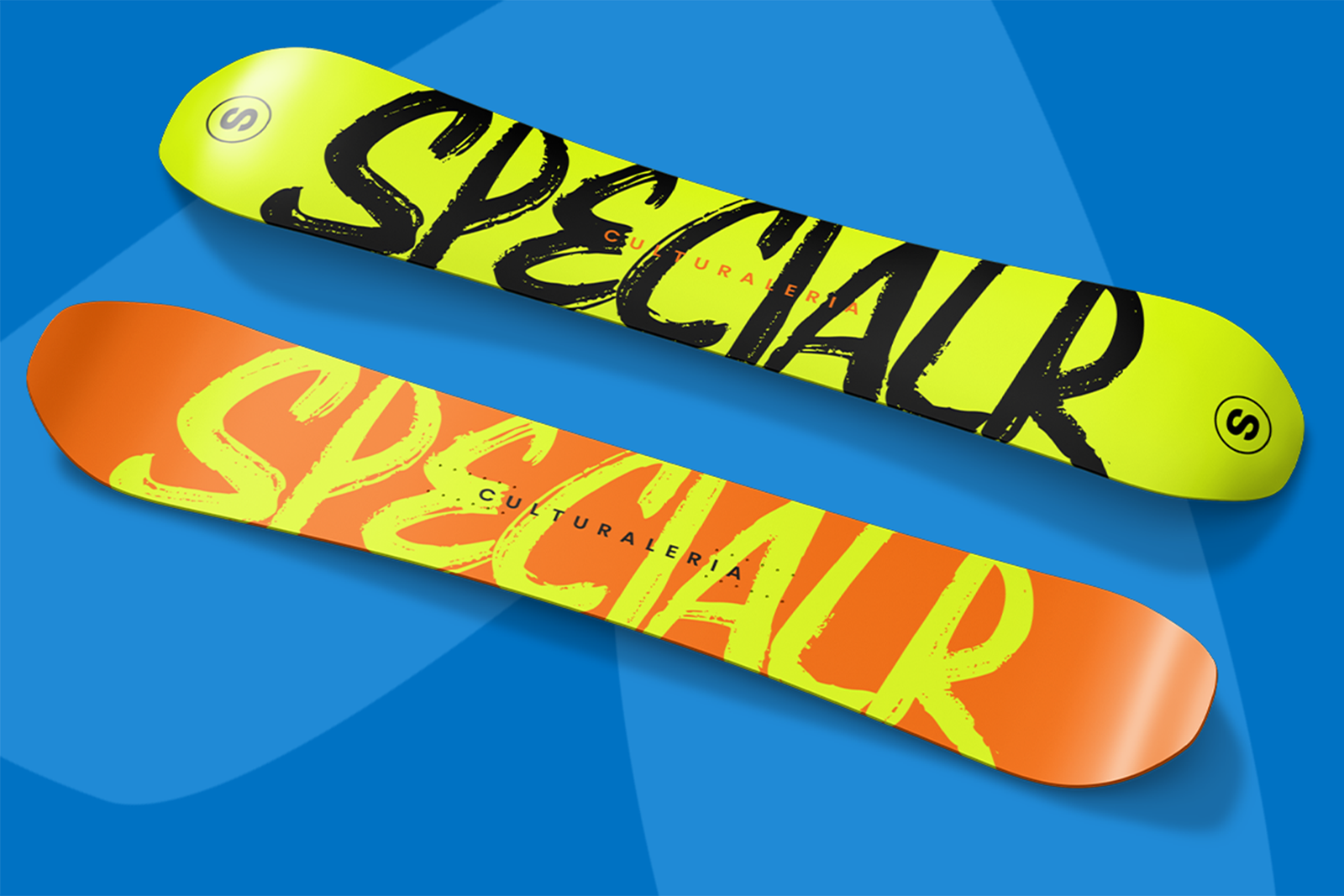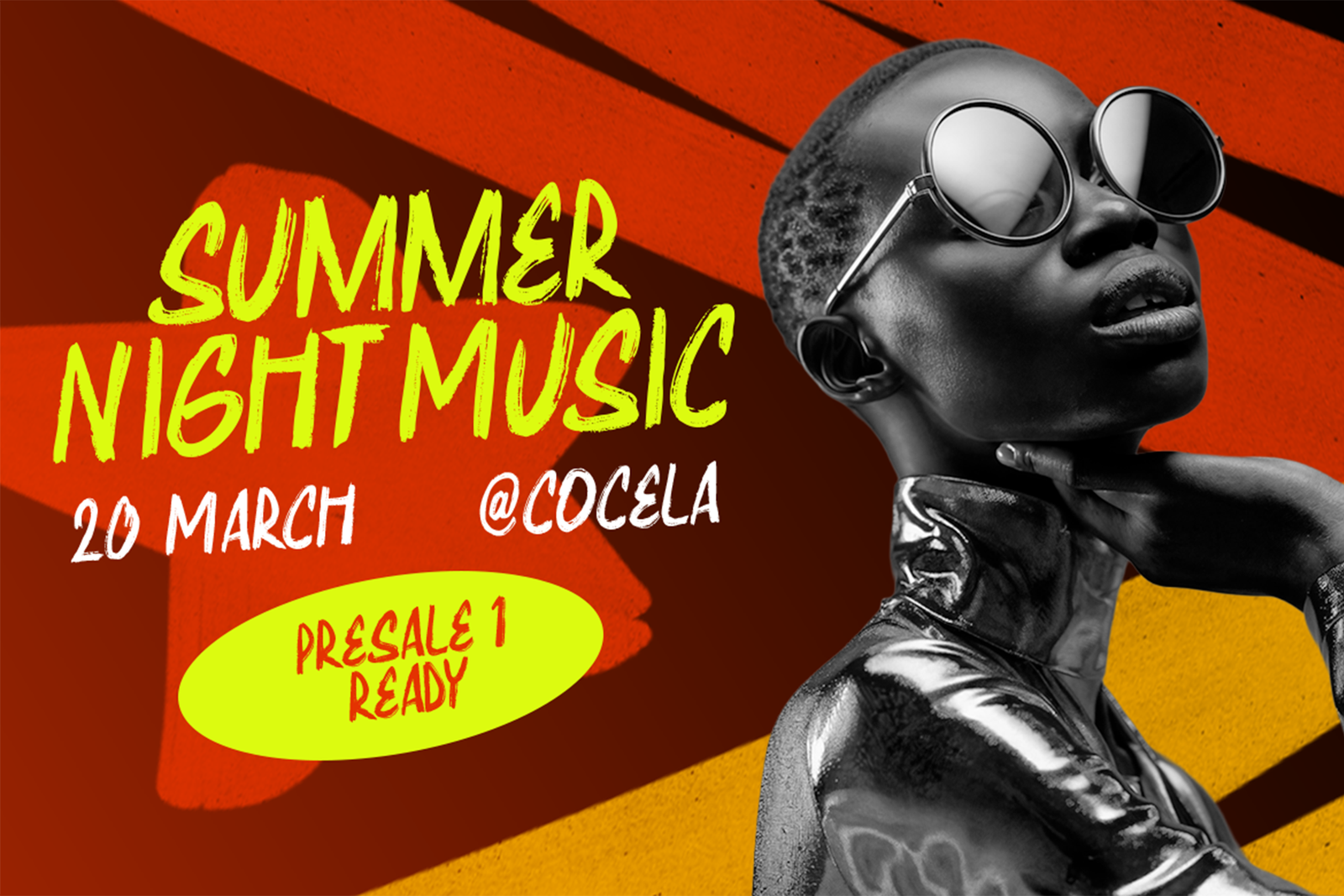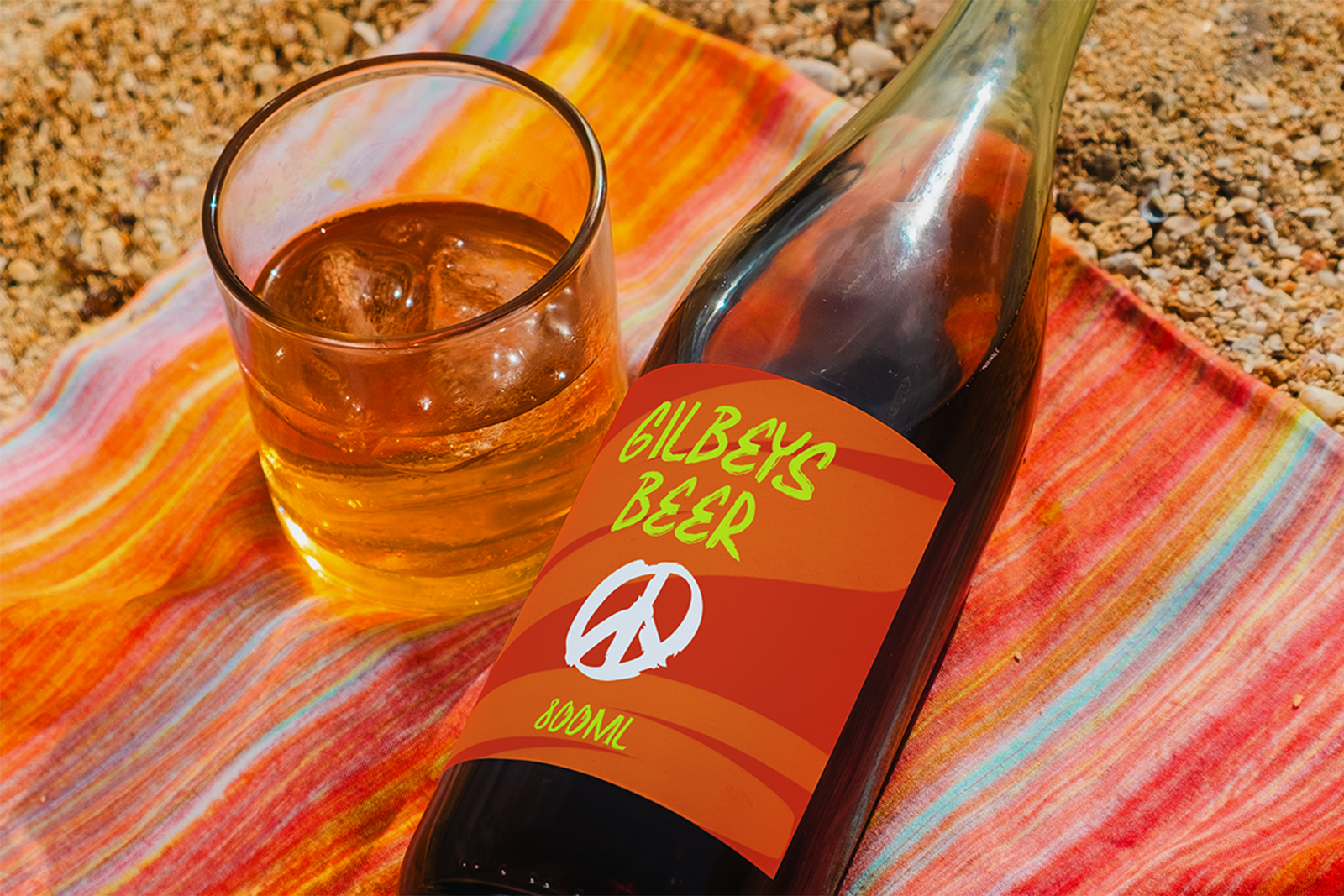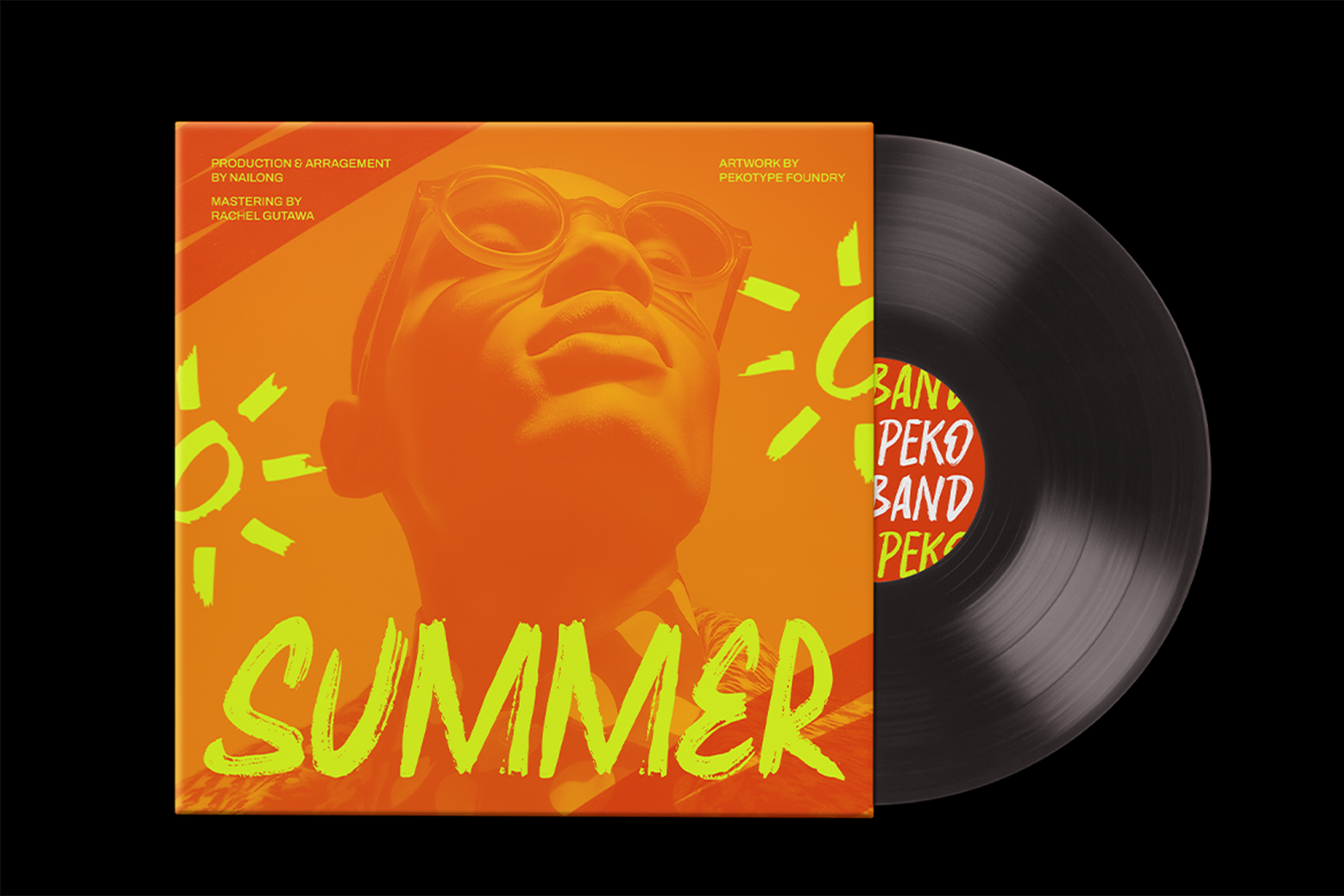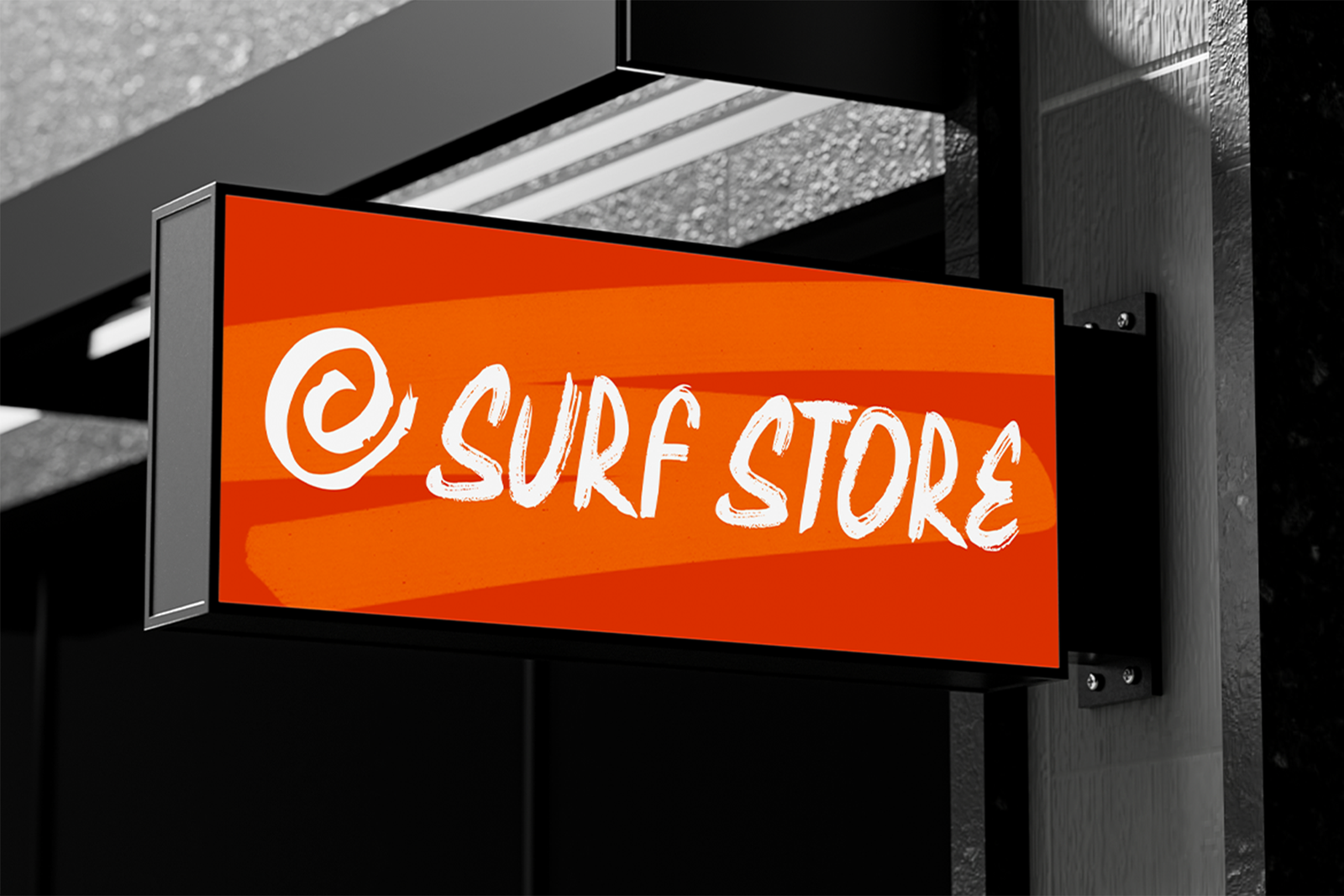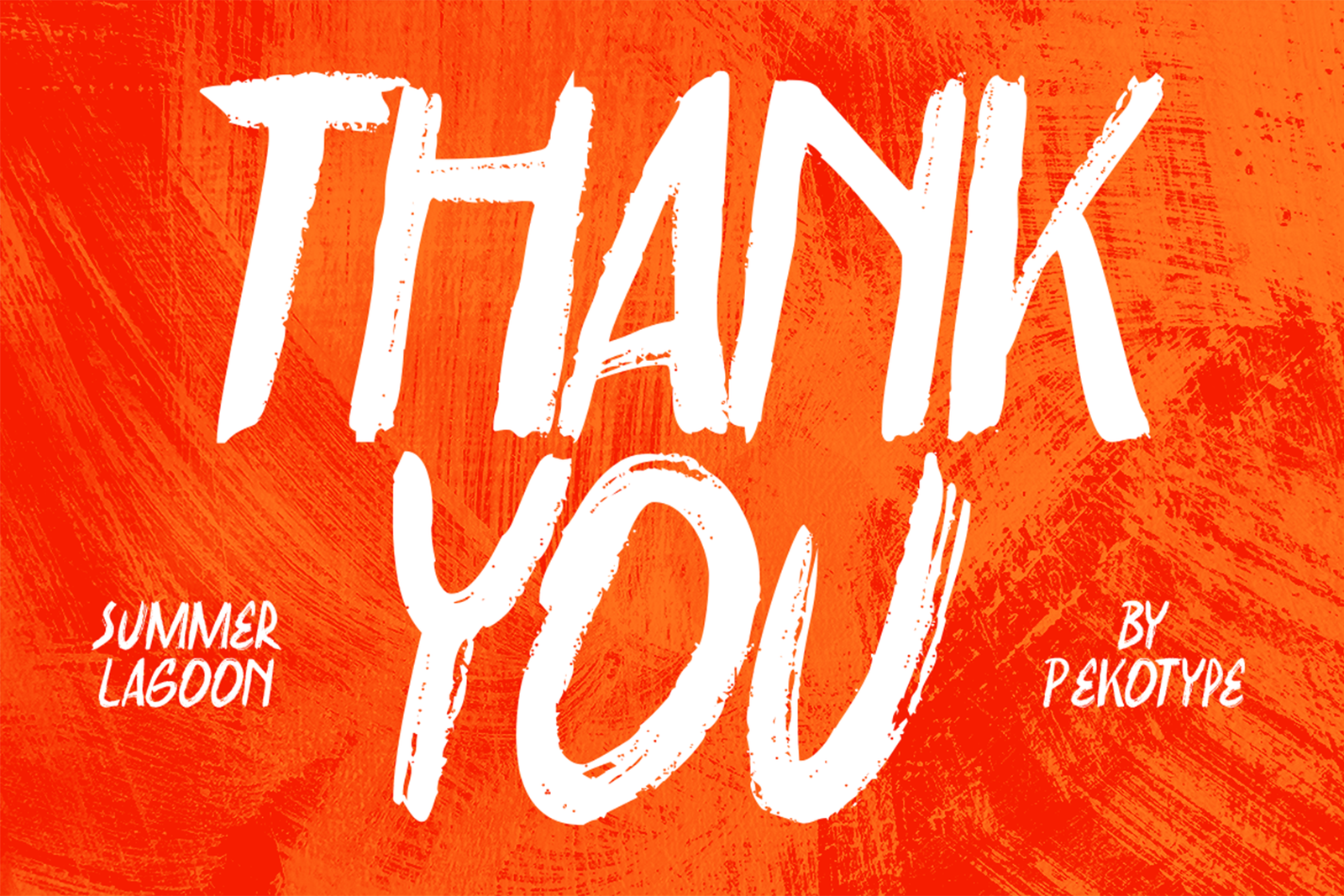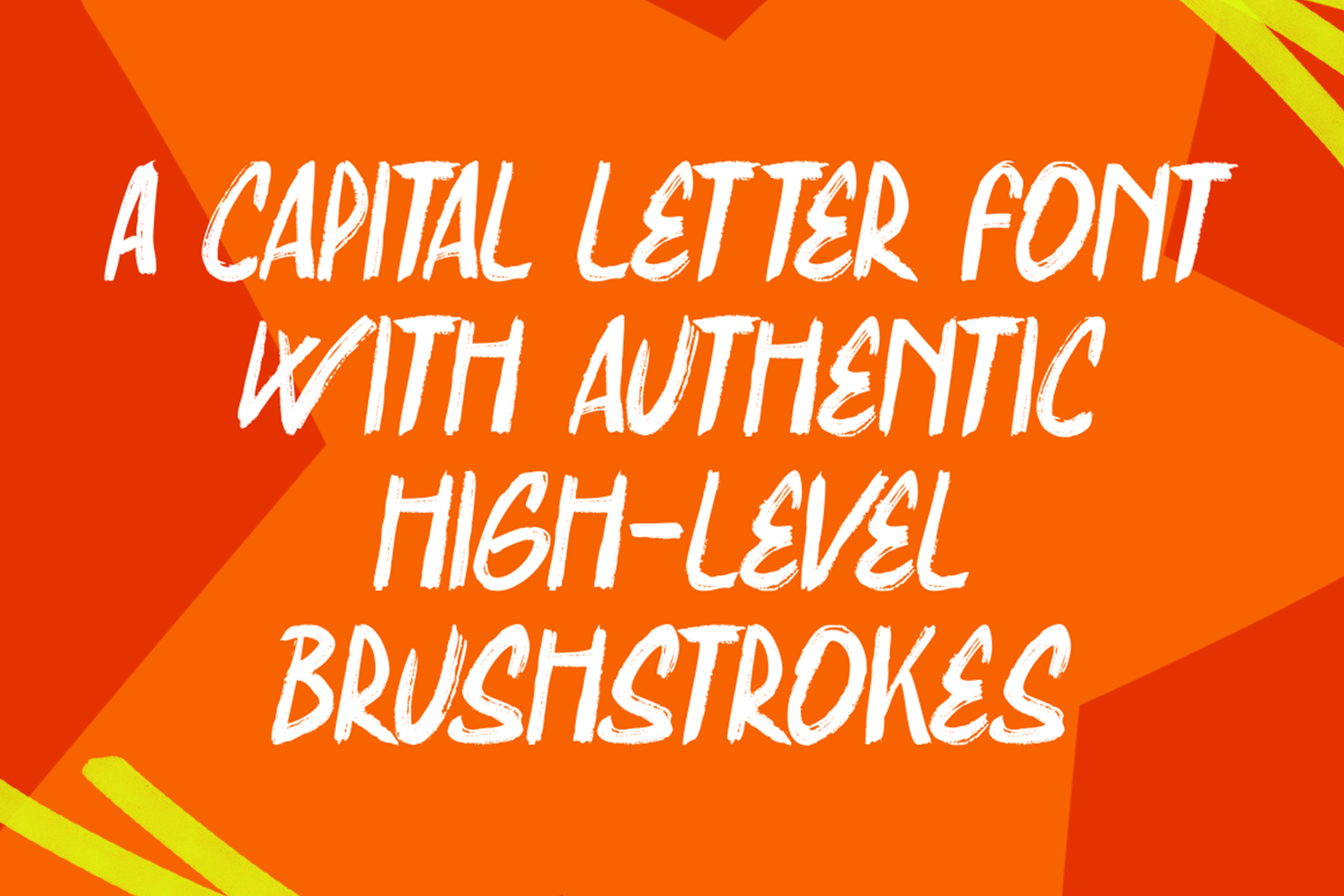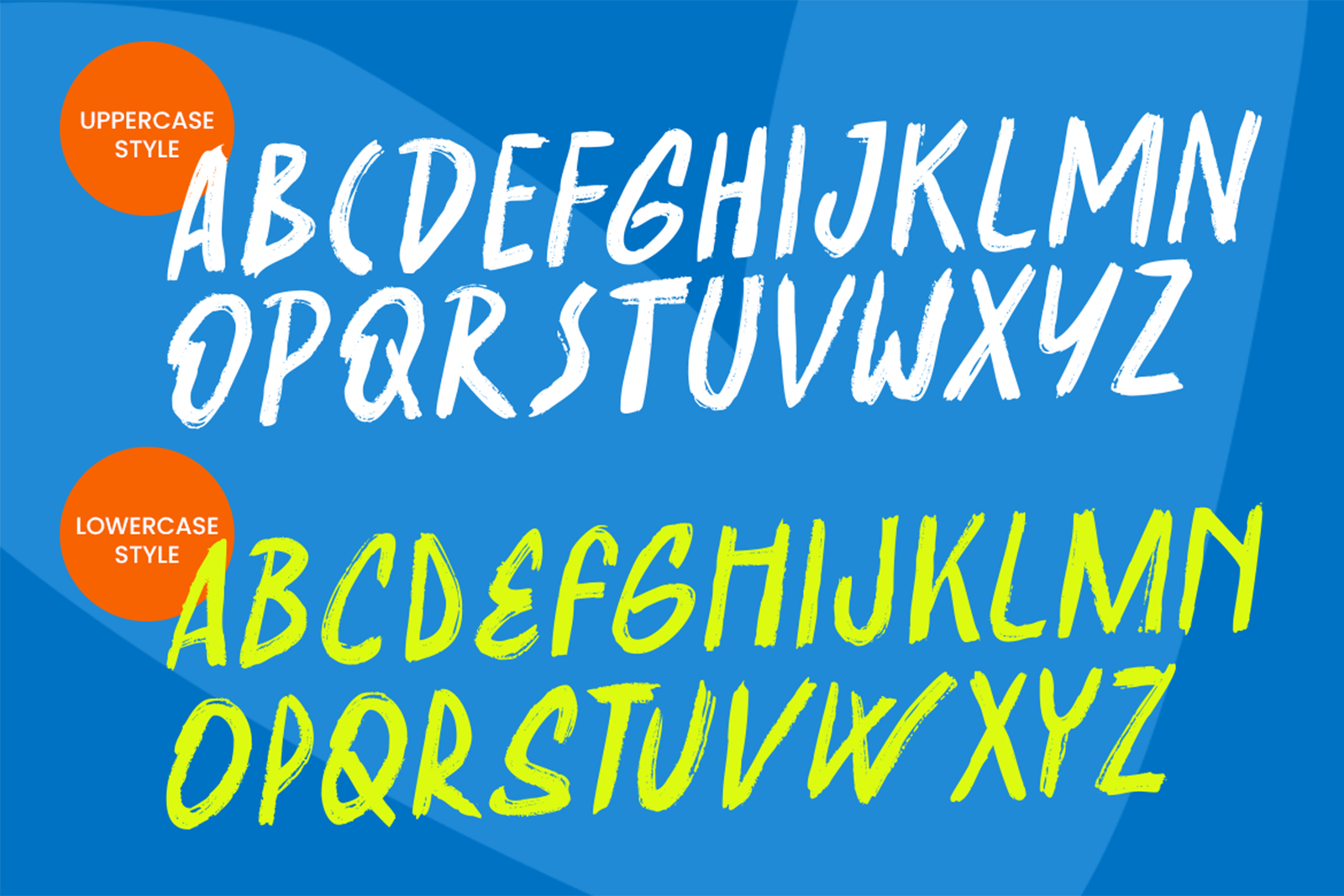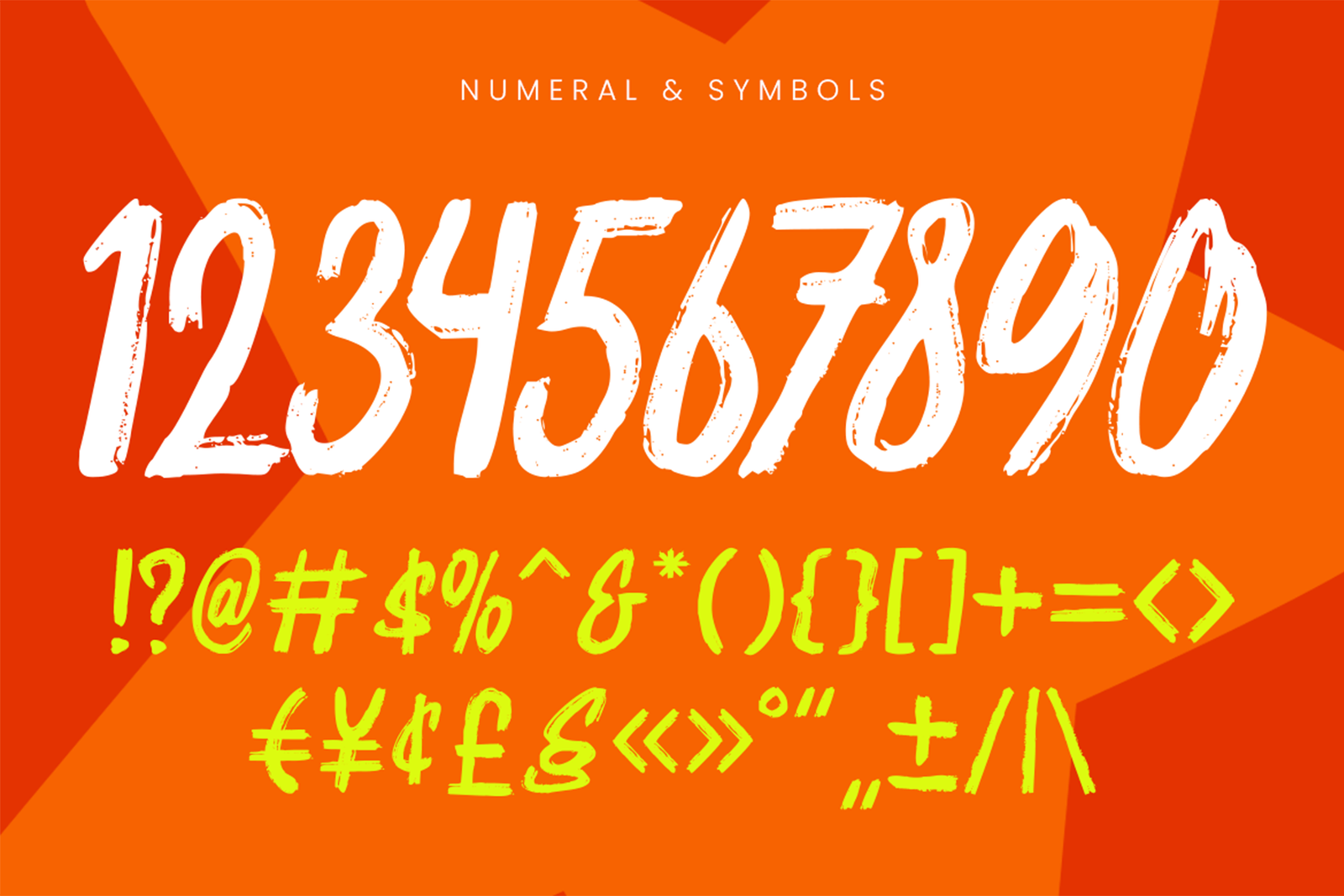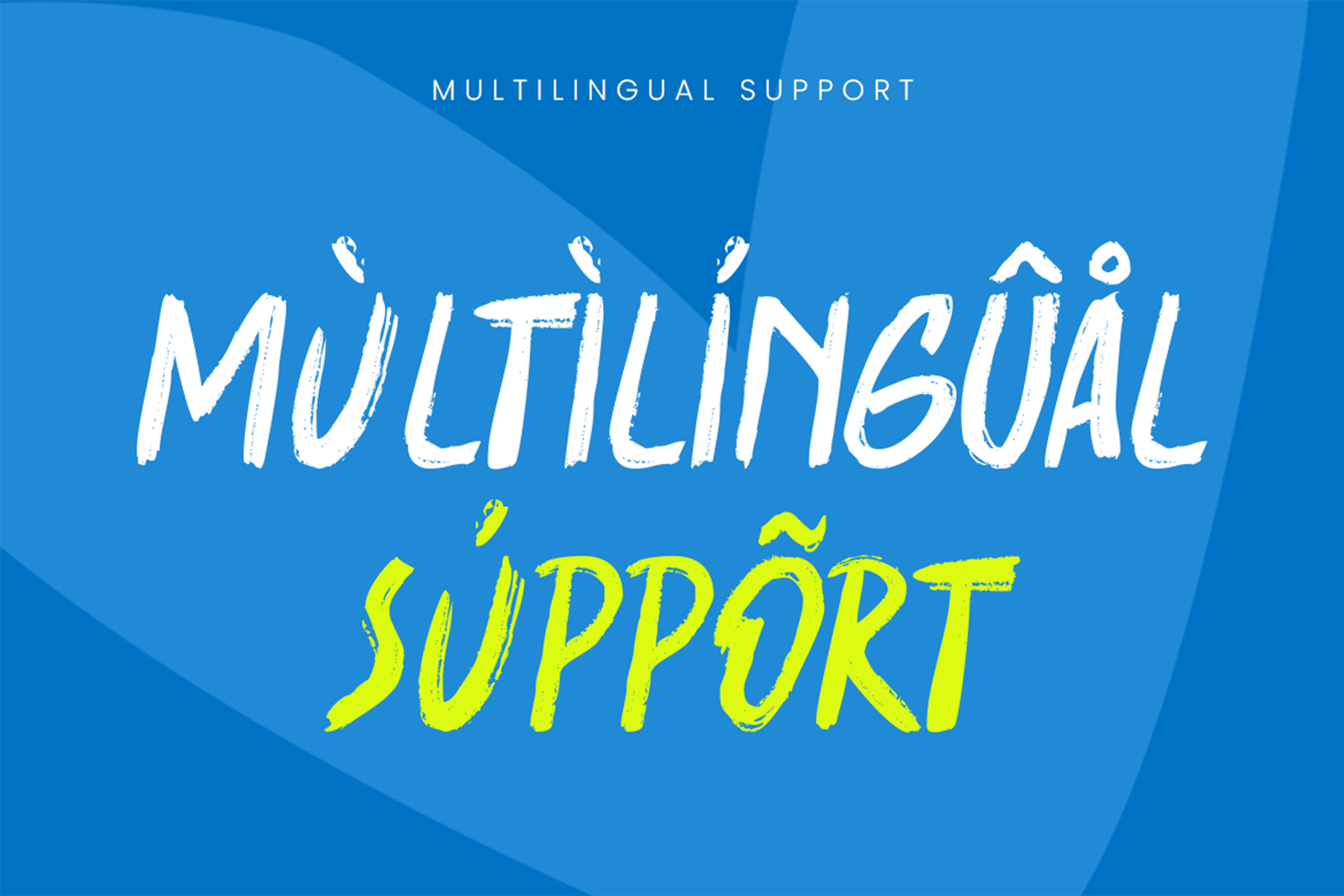
SUMMER LAGOON Font – Bold Brush Font
SUMMER LAGOON Font is a bold brush typeface designed to bring an authentic hand-painted feeling to your creative projects. Its raw strokes, energetic shapes, and expressive character create a lively summer mood with a touch of street-style attitude. The lettering feels personal, punchy, and full of movement, making it a great choice for designs that need strong visual personality.This font works beautifully for surf-style logos, clothing brands, summer campaigns, social media graphics, event posters, drink labels, packaging, stickers, and promotional designs. It also fits music artwork, festival graphics, lifestyle branding, YouTube thumbnails, and outdoor-inspired visuals. Whether you are creating a bold headline or a playful brand identity, SUMMER LAGOON Font adds a handmade character that feels fresh, energetic, and easy to notice.The typeface includes all caps characters, numbers, symbols, punctuation, ligatures, and multilingual support for flexible creative use. It is suitable for both digital and print projects, from logos and posters to packaging and social content. SUMMER LAGOON Font is a versatile choice for designers who want expressive brush lettering with a bold, youthful, and authentic personality that brings energy and character to modern summer branding projects and designs. Its expressive style makes short messages feel lively, unique.
Features:- All Caps
- Number, Symbol, & Punctuation
- Multilingual
- Ligatures